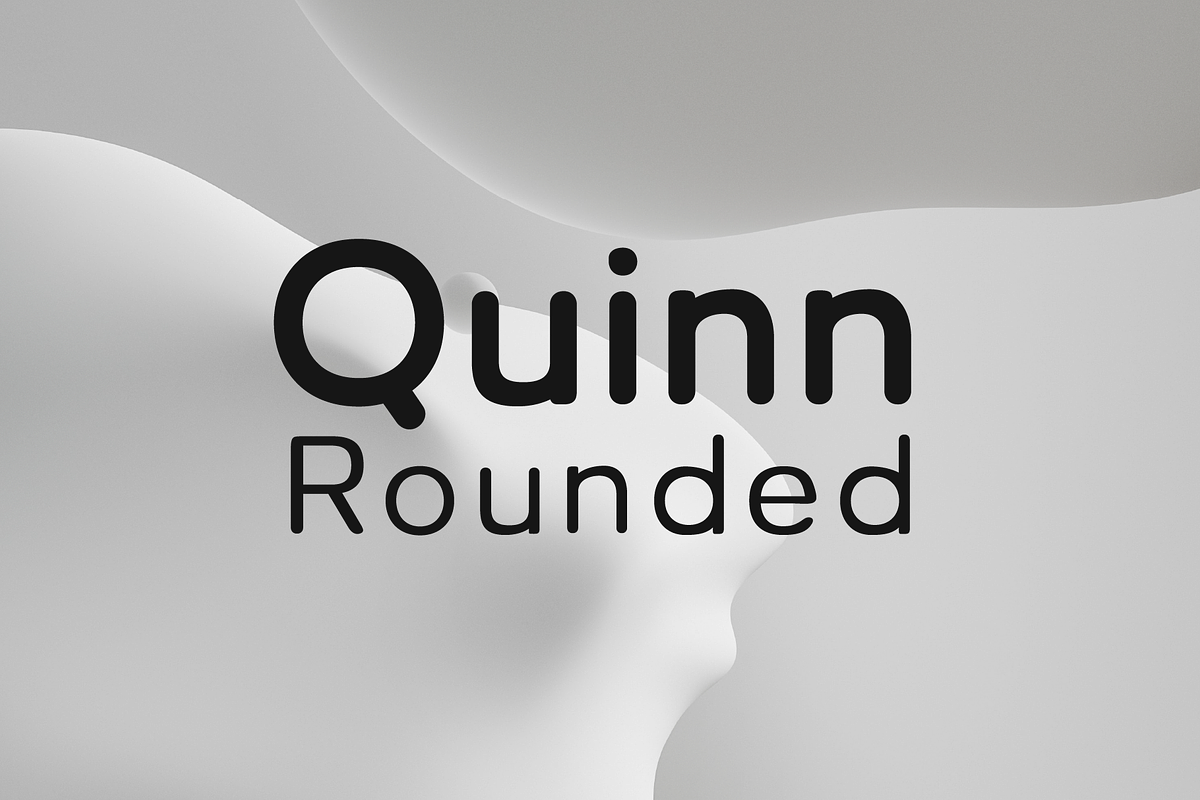
Quinn Rounded – A Minimal Sans Serif Font Free Download is a clean, contemporary typeface with soft, rounded edges that give it a friendly and approachable look. Perfect for branding, UI/UX design, packaging, modern logos, and editorial layouts, this font blends simplicity with warmth.
Its smooth corners and geometric balance make Quinn Rounded – A Minimal Sans Serif Font Free Download ideal for both digital and print use, offering clarity without harshness. Whether you’re working on a sleek startup identity or a minimalist lifestyle blog, this font adds a touch of modern elegance.